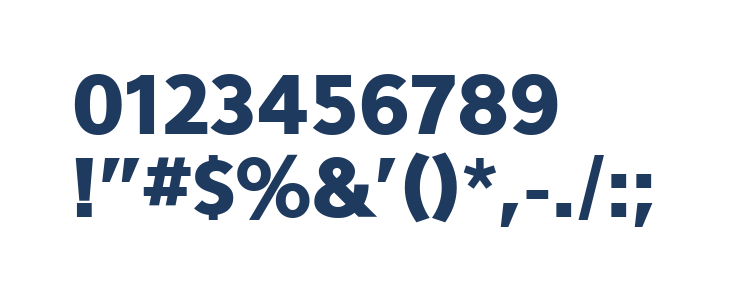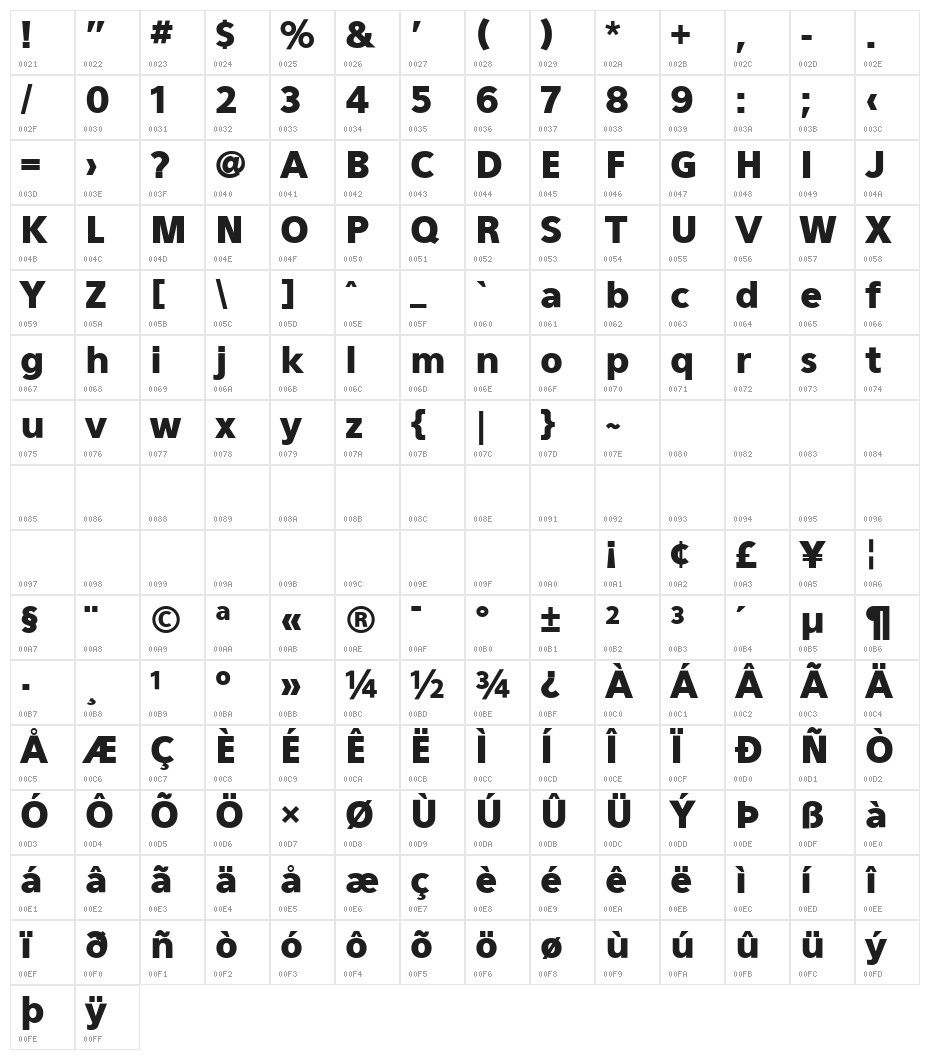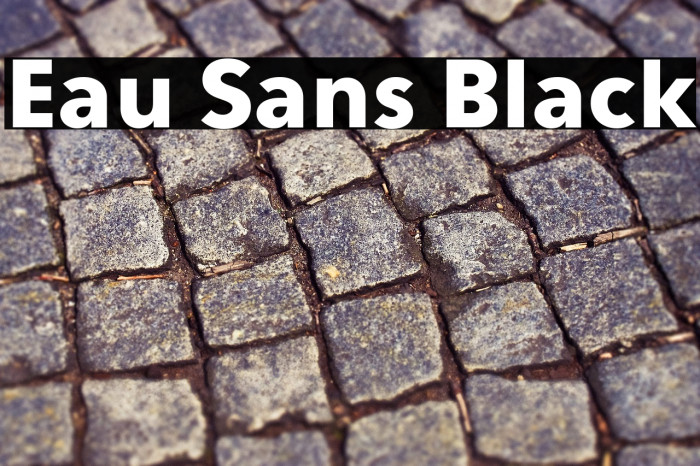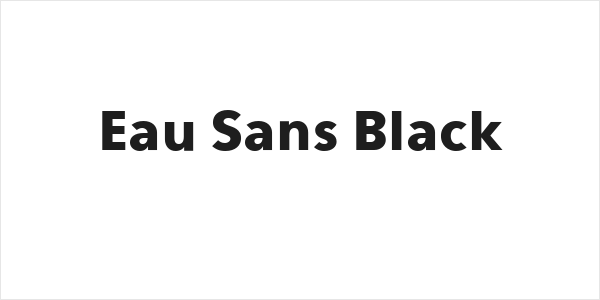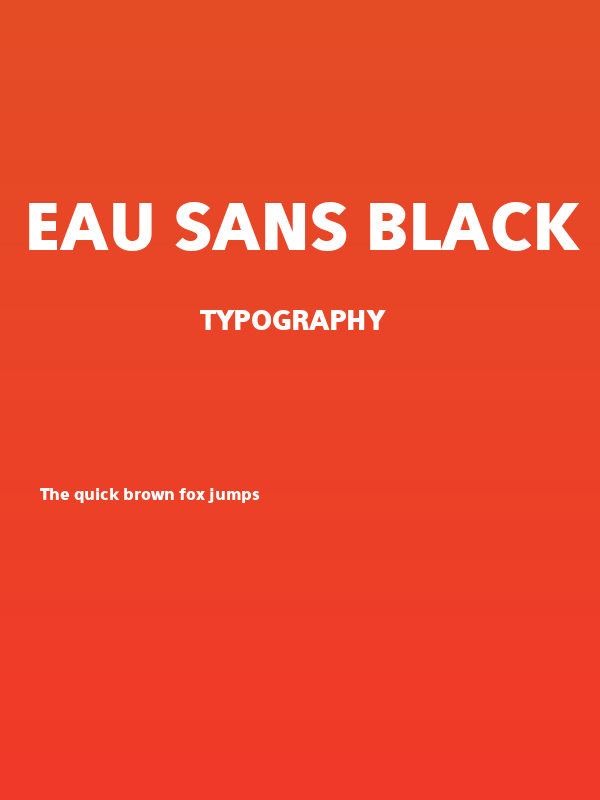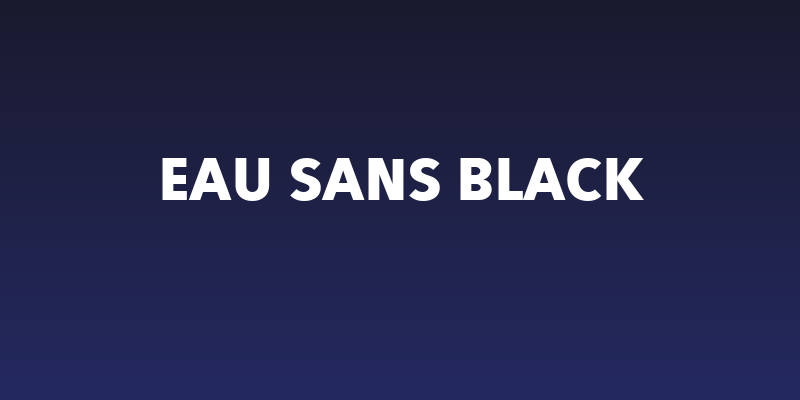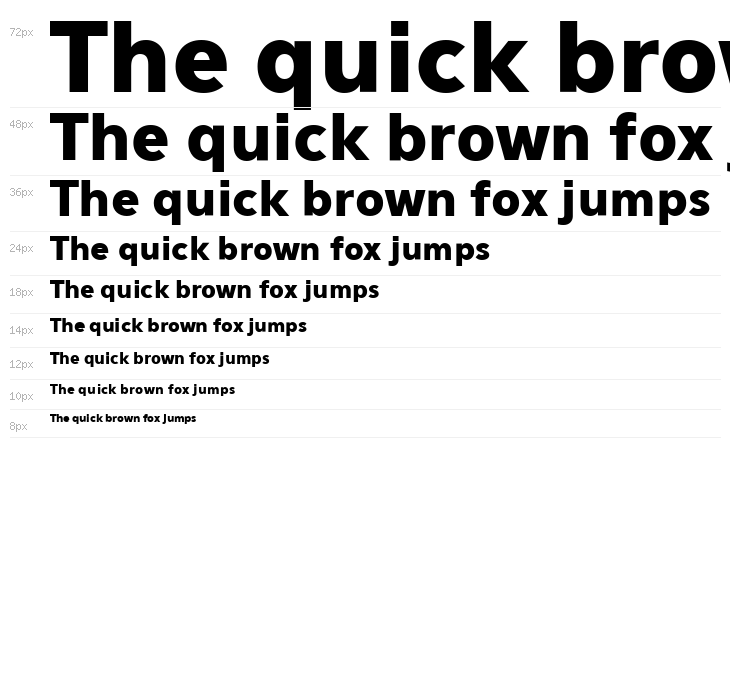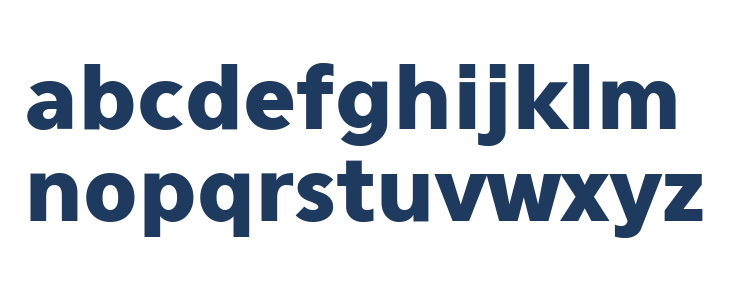
Eau Sans Black Font
Eau Sans Black Description
This font exhibits a bold and modern sans-serif style, characterized by its clean lines and strong presence. The uppercase and lowercase letters maintain a consistent weight, providing a uniform appearance across all characters. The numbers and special characters are designed with the same boldness, ensuring readability and impact. Its geometric shapes and even stroke widths contribute to a contemporary look, making it suitable for a variety of design applications. The font's simplicity and clarity make it highly versatile, ideal for both digital and print media.